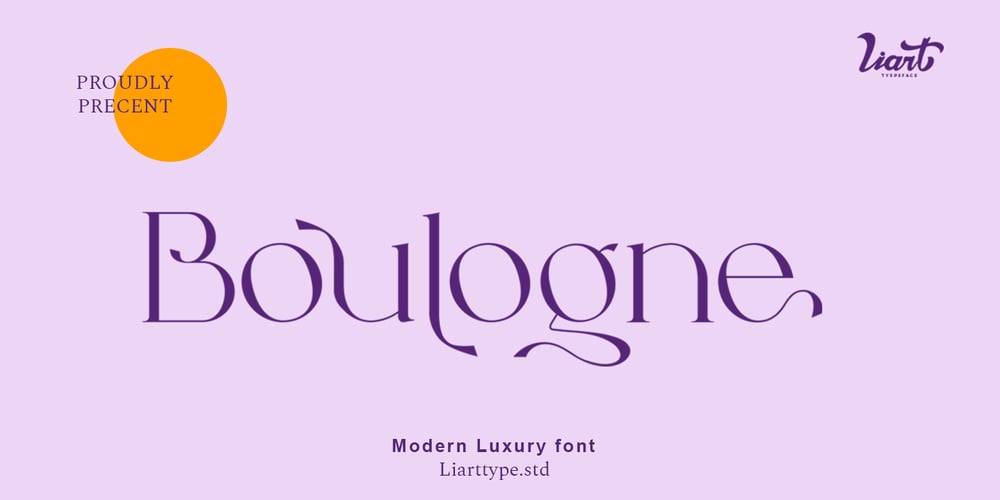
Boulogne Font Family was designed by Ali Sifak Muftari and published by Liartgraphic. Boulogne contains 1 styles and family package options. The latest collection from Liarttype is Boulogne sans serif font with a modern and unique style and is equipped with several alternates and ligatures and is multilingual. Boulogne is suitable for use in your work as a logo, branding, landing page, logotype and others.